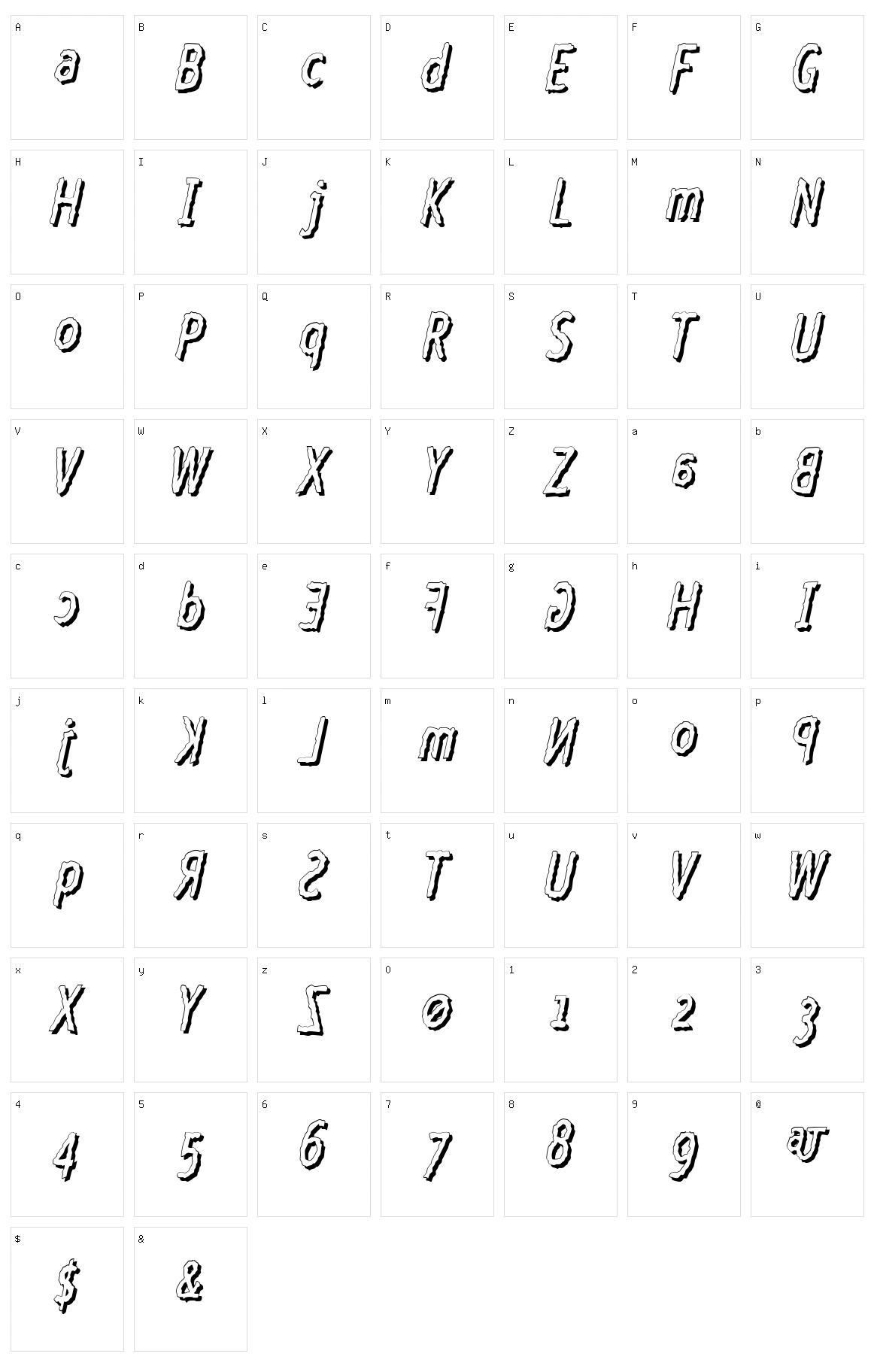
The free font Crazy Cock is carefully designed by Abstract Type Design, showcasing a thoughtful balance of creativity and usability and falls under the Distorted font style. When you download the ZIP file, it contains only 59.19 KB of font files, making it lightweight and quick to download. Please review the license details below to understand permitted usage and distribution rights. If license information is not available, we recommend using this font for personal projects only or contacting the author directly for commercial usage permissions.